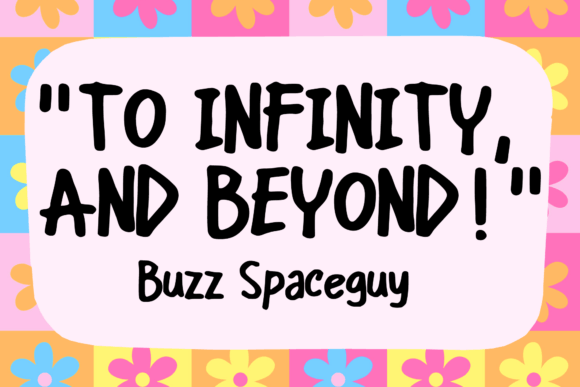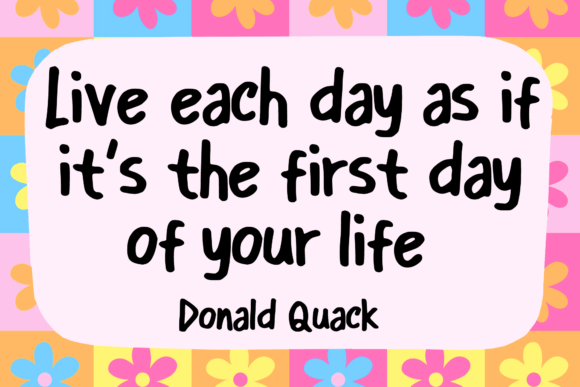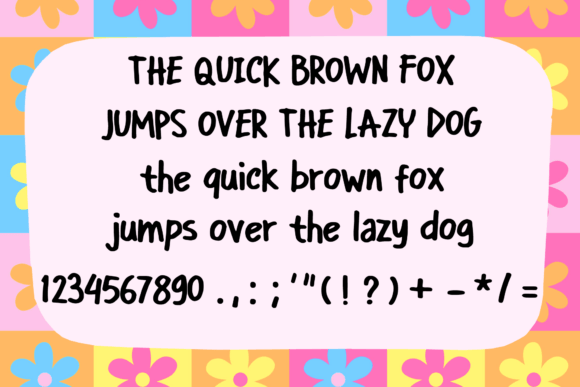
Introduction to Happy Comic Font
Who hasn’t had that moment of pure creative bliss when the perfect font comes along and takes your design to the next level? For designers, it’s like stumbling upon a treasure trove of inspiration. And that’s exactly what happens when you discover the Happy Comic Font – a high-quality, versatile, and fun-to-use handwritten comic font that’s sure to elevate your creative projects.
Whether you’re working on a sticker design, a t-shirt concept, or a logo that needs a super cool touch, the Happy Comic Font is your go-to design resource. With its transparent background and free download option, you can experiment with this font without any limitations. And the best part? It’s perfect for a wide range of creative projects, from comics and cartoon drawings to magazine covers and book designs.
Key Features of Happy Comic Font
- High-quality digital font designed for creative projects, ideal for comic books, graphic novels, and other design resources.
- Features a transparent background, making it easy to use over various backgrounds and designs.
- Includes a wide range of characters, including uppercase and lowercase letters, numbers, and special characters.
- Designed with a playful and energetic feel, making it perfect for adding a touch of whimsy to your design project.
- Resolution: 300 DPI, ensuring crisp and clear text even when enlarged or used in high-resolution designs.
Honest Review: Happy Comic Font
I recently had the chance to work with the Happy Comic Font, and I must say it’s a delightful addition to any creative project. Its high quality is immediately apparent, making it a great design resource for those looking to add a playful touch to their work.
One of the standout features of the Happy Comic Font is its transparent background, which allows for seamless integration into various design elements. This makes it a fantastic option for creating eye-catching graphics and illustrations.
Here are some of the things that work well with the Happy Comic Font:
- Its versatility – it can be used for a wide range of creative projects, from children’s books to social media graphics
- Its high level of detail, which makes it perfect for small text and intricate designs
However, I do have a few reservations about the font. It can be a bit challenging to read at smaller font sizes, and it may not be the best choice for projects that require a lot of text.
Overall, I’m really impressed with the Happy Comic Font, and I think it’s a great addition to any designer’s toolkit. With its high quality, transparent background, and free download option, it’s a design resource that’s hard to beat.
Happy Comic Font
The Happy Comic Font is ideal for creative projects that require a playful and energetic vibe. Some common use cases include: designing children’s books, creating comic strips, and developing branding materials for entertainment companies. You can also use it to add a touch of whimsy to your social media graphics and blog posts.
Tips for Getting the Most Out of Happy Comic Font
To get the most out of Happy Comic Font, make sure to pair it with a high-quality image or background that complements its playful style. You can also experiment with different font sizes, colors, and styles to create a unique look. Additionally, consider using a transparent background to create a clean and professional design.